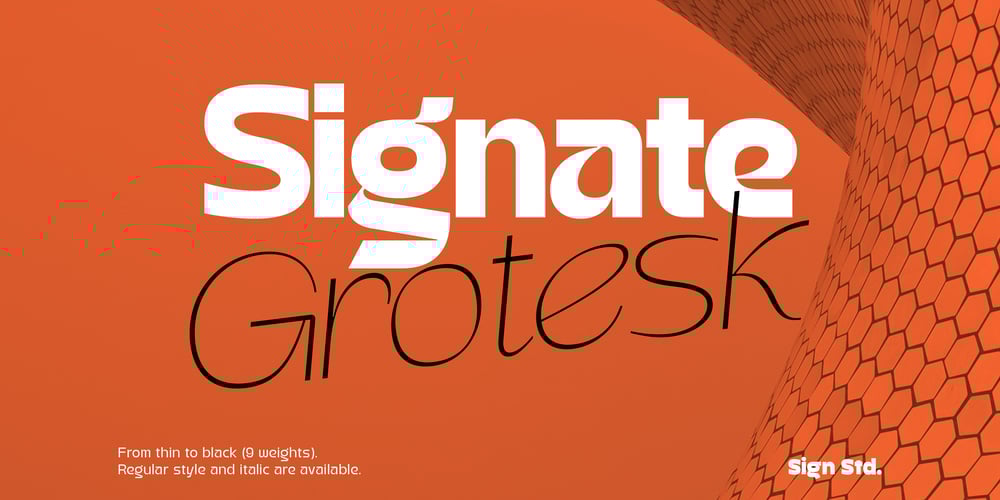
Signate Grotesk Font Family was designed by Sugi Yanto and published by Sign Studio. Signate Grotesk contains 18 styles and family package options. Signate Grotesk comes in 9 weights. The dimensions are synchronous from Thin to Black and are also equipped with an Italic style of 12 degrees. Equipped with Cyrillic characters will provide good language support. Can stand alone or as a support for other typography. Very versatile for writing official documents, logotypes, product branding, website design.